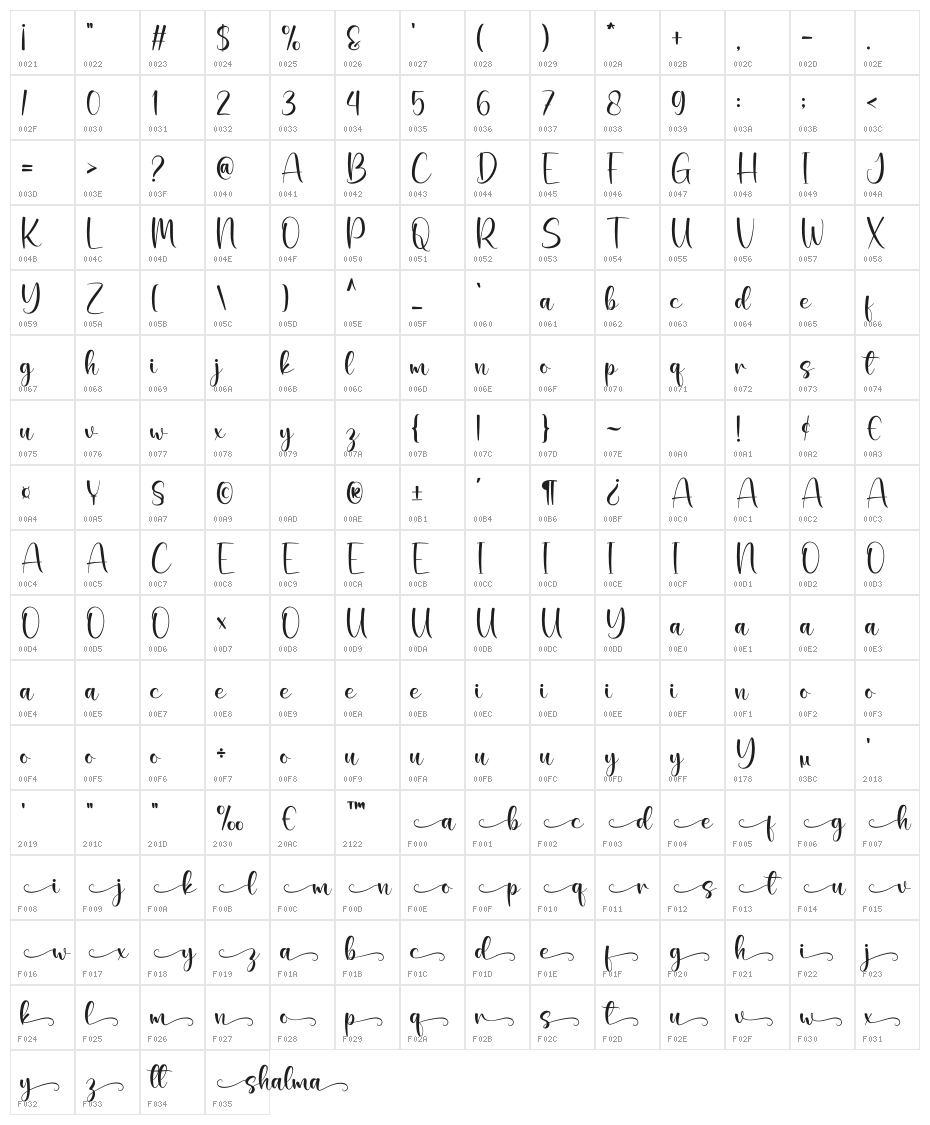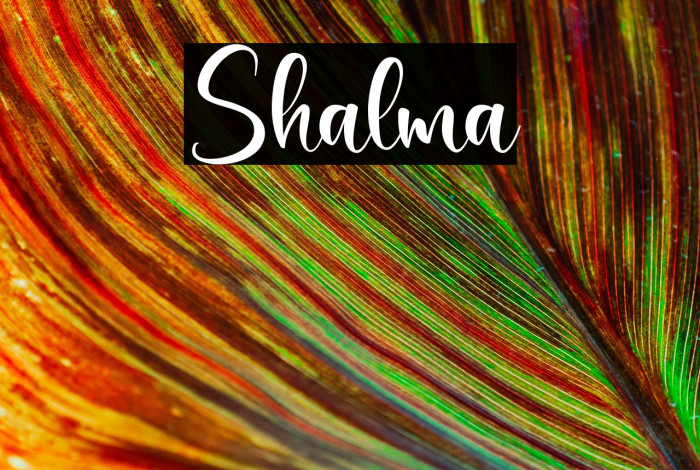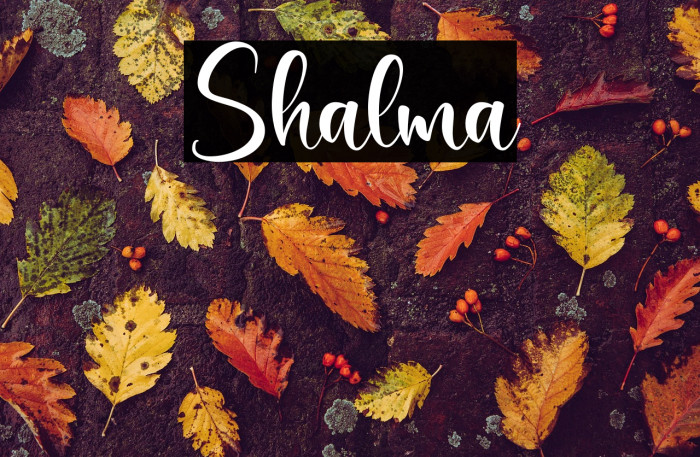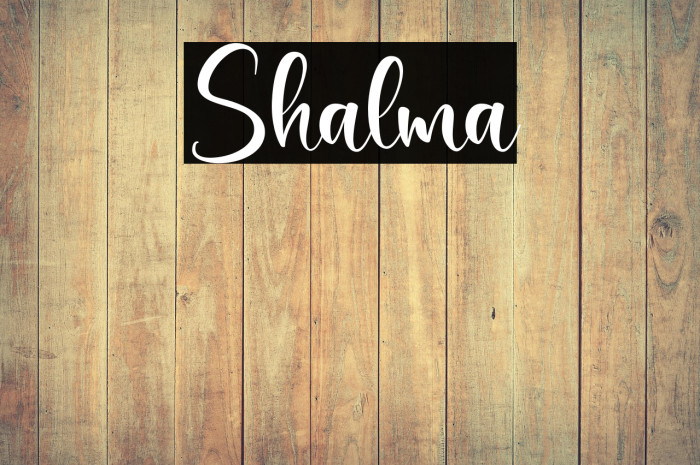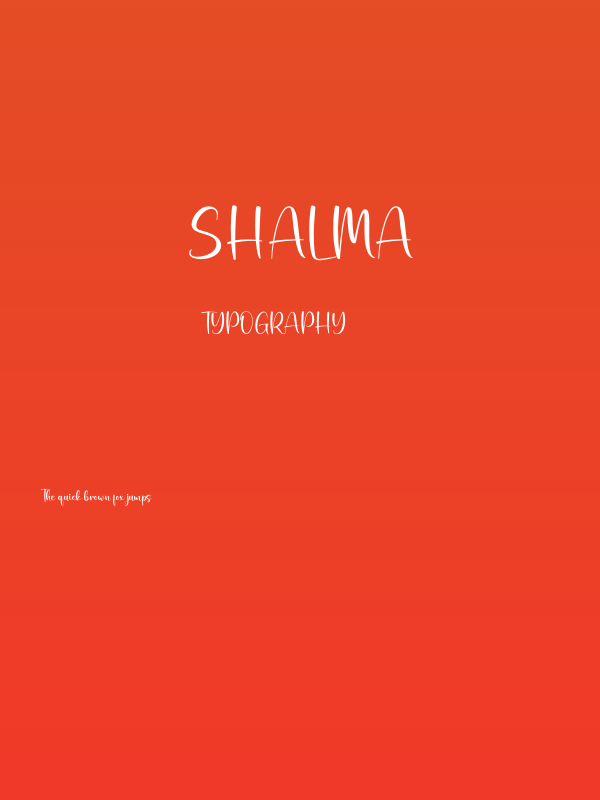
Shalma Font
Shalma Description
A playful and flowing handwritten script font with a modern touch, featuring smooth curves and varying stroke widths.
| Use Case | Logos, Headlines, Invitations |
| Proposed Projects | Greeting cards, invitations, personal branding. |